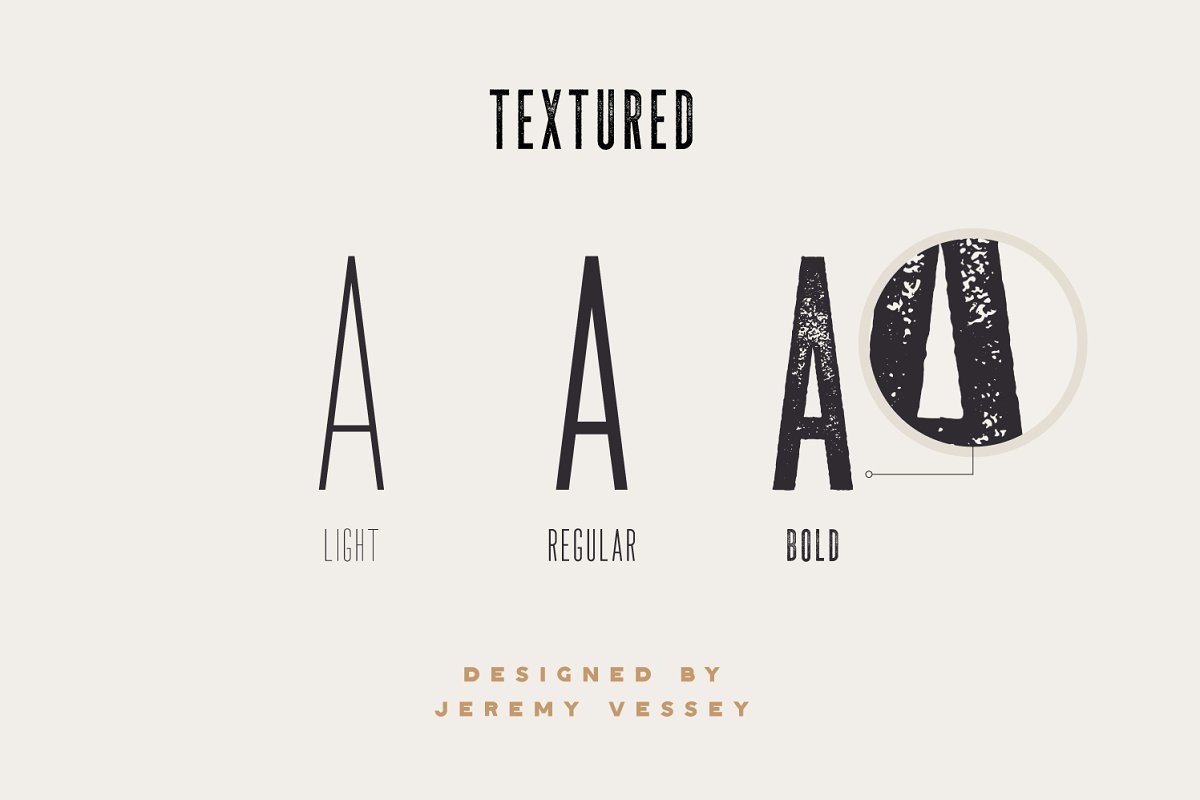
The NationalBy HSCoLimited Time OfferGet The National in The Bestseller’s Font Bundle Today for (80% OFF)https://crmrkt, com/eRxlQvThe National is an ultra condensed Type Family that includes Light, Regular & Bold versions, Each version contains a clean, textured (Aged) and Oblique version, With 3 weights and aged treatments, The National can give a diverse set of aesthetics
With light giving a much more modern, fashionable feel and the bold giving a more rugged vibe for whisky packaging, What’s included ?12 OTF FilesWestern International Character SetClean, Aged & Oblique versionsWhich fonts are used in the displays?Pairing with ‘The National’ are:Gastro Pub: https://crmrkt